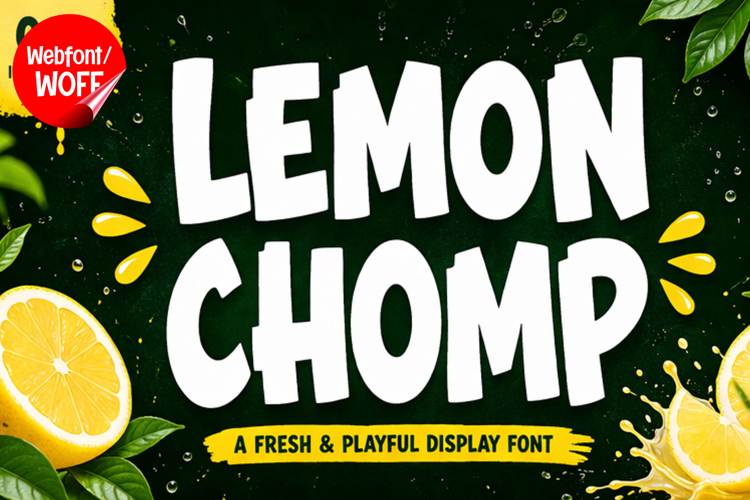
Lemon Chomp Playful Webfont
Lemon Chomp is a fresh and playful display webfont designed to bring cheerful personality and vibrant energy into modern digital experiences. Inspired by fun branding aesthetics, fruity visuals, cartoon typography, and colorful creative culture, Lemon Chomp combines chunky bold letterforms with playful curves to create typography that feels friendly, energetic, and visually engaging.
Built for websites, online branding, digital campaigns, social media graphics, food promotions, children-themed visuals, and creative presentations, Lemon Chomp delivers strong readability with expressive display style.
Its bold organic structure creates eye-catching headlines that stand out clearly across multiple screen sizes while maintaining soft and approachable visual personality. The font is perfect for colorful layouts, modern packaging websites, playful online branding, snack promotions, beverage campaigns, and creative digital content.
- Playful Display Style
- Chunky Organic Shapes
- Modern Fun Typography
- Smooth Digital Appearance
- Cheerful Branding Character
- Bold Friendly Letterforms
Lemon Chomp creates vibrant typography compositions with playful energy and approachable charm. Its rounded chunky forms help digital layouts feel more lively, colorful, and memorable.
The font performs beautifully in oversized web headlines, creative landing pages, packaging previews, digital posters, and online branding visuals. Its cheerful personality makes typography feel modern, energetic, and fun without sacrificing readability.
Inspired by playful visual culture, fruity aesthetics, colorful branding trends, and modern cartoon typography, Lemon Chomp transforms ordinary digital text into cheerful visual experiences.
Suitable for creators looking for bold playful typography with fresh modern vibes and strong visual personality.